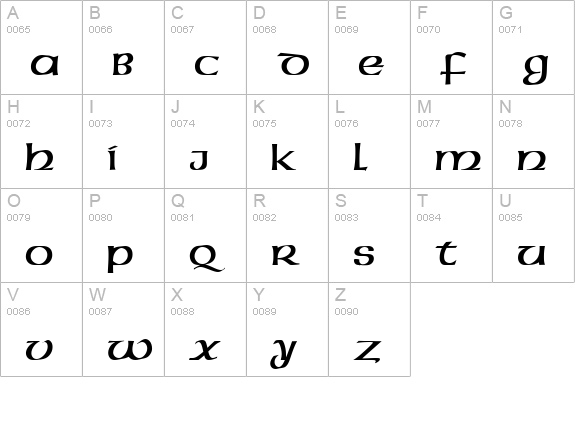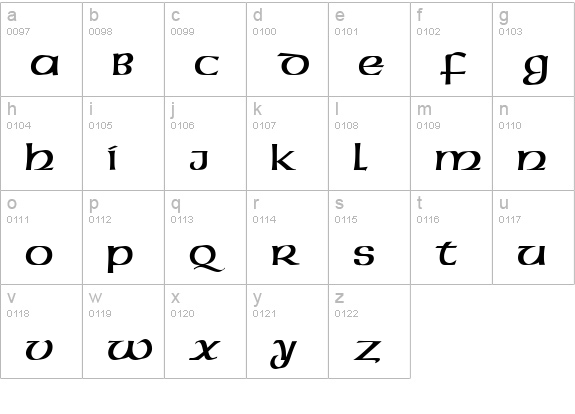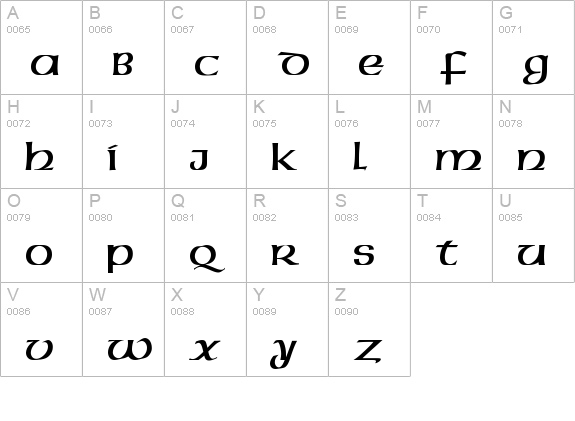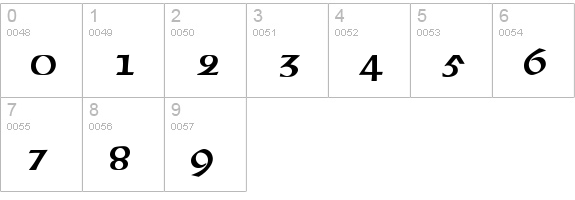
AmericanUncD Font Details
AmericanUncD font is a versatile and stylish typeface that exudes a sense of classic Americana with a modern twist. Its bold and rugged appearance makes it perfect for creating eye-catching titles, headings, and branding materials. The sharp edges and clean lines of AmericanUncD font give it a strong presence on any design project. This font is available for free download at FontsMarket.com, making it easily accessible for designers and creators looking to add a touch of Americana to their work. Whether you're working on a vintage-inspired poster, a rustic logo, or a bold website header, AmericanUncD font is sure to make a statement with its unique and timeless appeal.